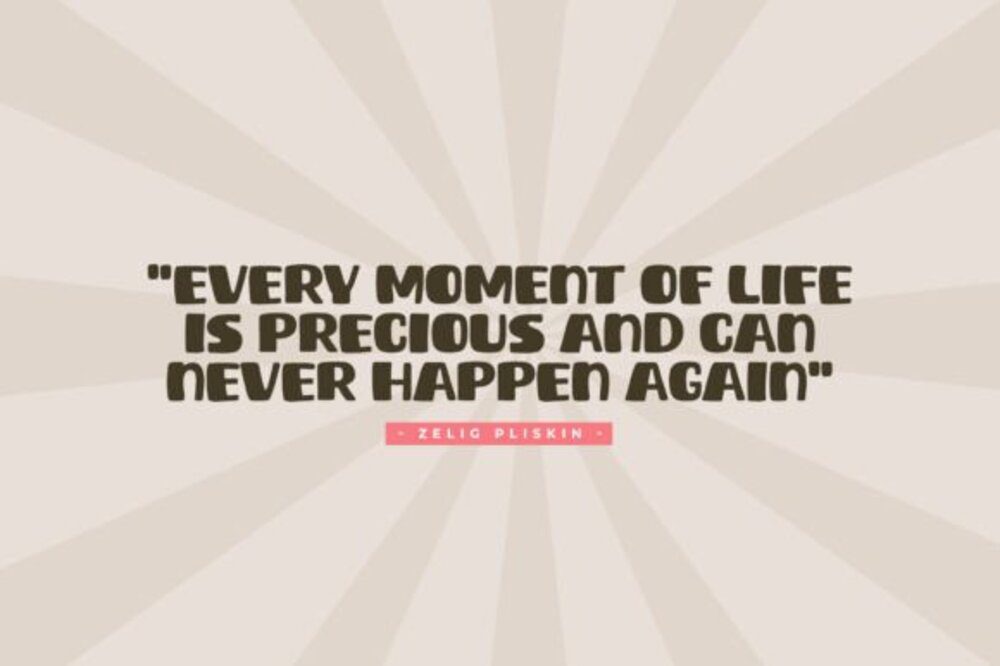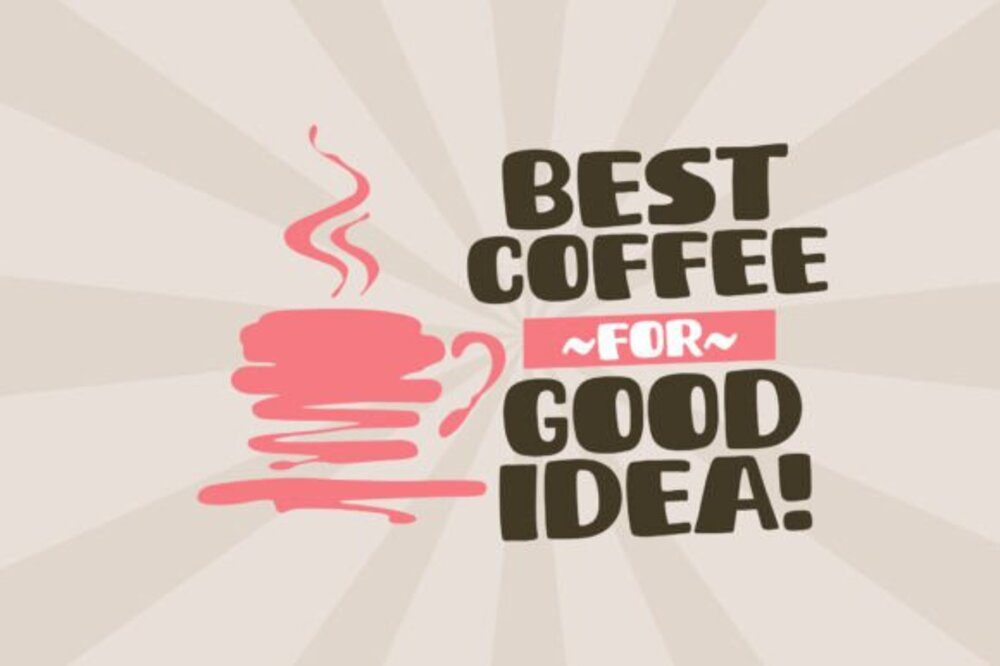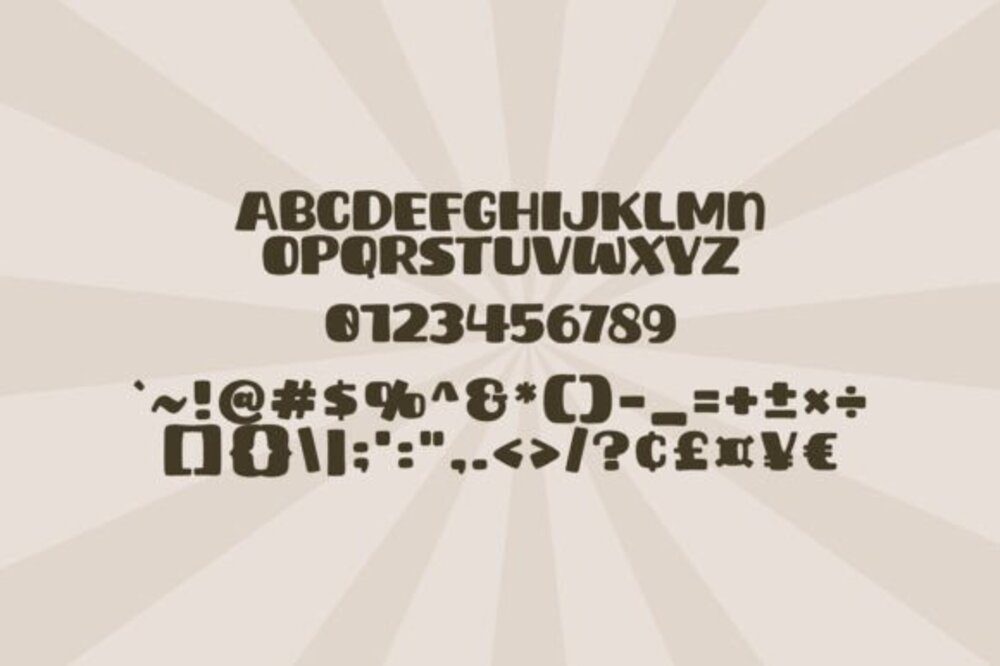
First Draw Font
First Draw Font is a playful and creative typeface inspired by hand-drawn lettering. Its sketchy, imperfect lines give it a casual, artistic feel, perfect for projects that need a personal and fun touch. Ideal for illustrations, posters, and branding, this font brings a fresh, youthful vibe to any design. First Draw captures the essence of creativity and spontaneity.